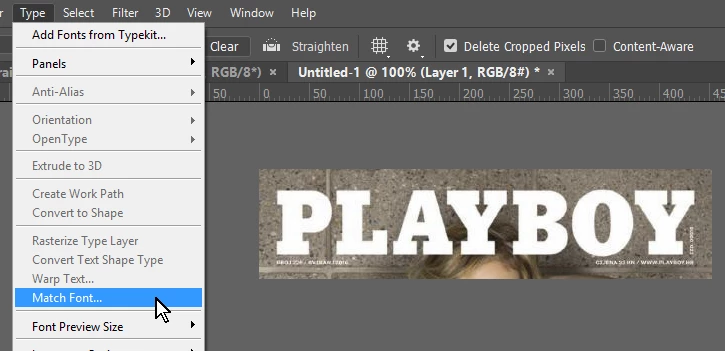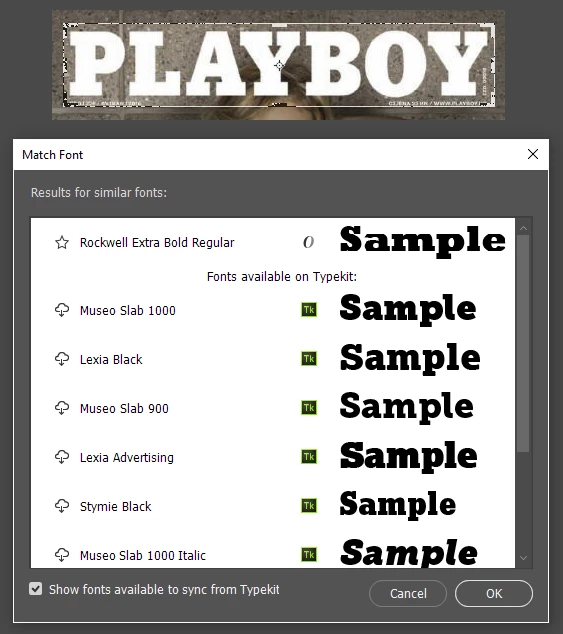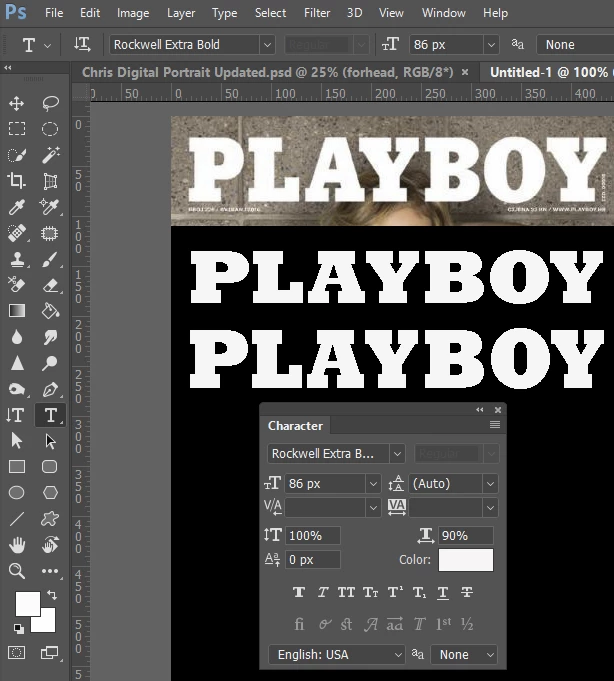
Playboy Font?
I am trying to replicate a Playboy-type centerfold pic and cannot seem to locate the type style used by them.
Does anyone know what font they use?
If you are using CC, do you know you can do this?
You have to drag the bounding box to encompass the text you want to test, and it searches your installed and TypKit fonts.  If you select one of the TypeKit fonts then it will sync it if you have not already maxed out your synced fonts limit.
In this case the already included ​Rockwell Extra Bold looks like a good match, but it is improved by reducing the width/height aspect ratio.  I know that typography purists will be feinting at the thought of modifying a font this way
I am looking to match the centerfold type, which is different than the style used on the cover.Who marked this as answered?
Playboy uses a custom typeface from Okay Type (Other Notable Font Releases of 2015 – Typographica ) as well as Alright Sans and Harriet (www.okaytype.com).
I'm not sure this was used for the centerfolds, but is a step in the right direction, for sure...
You could use this online finder : WhatTheFont! « MyFonts
Check DaFont.com - there are several knockoffs available there. Playtoy etc.